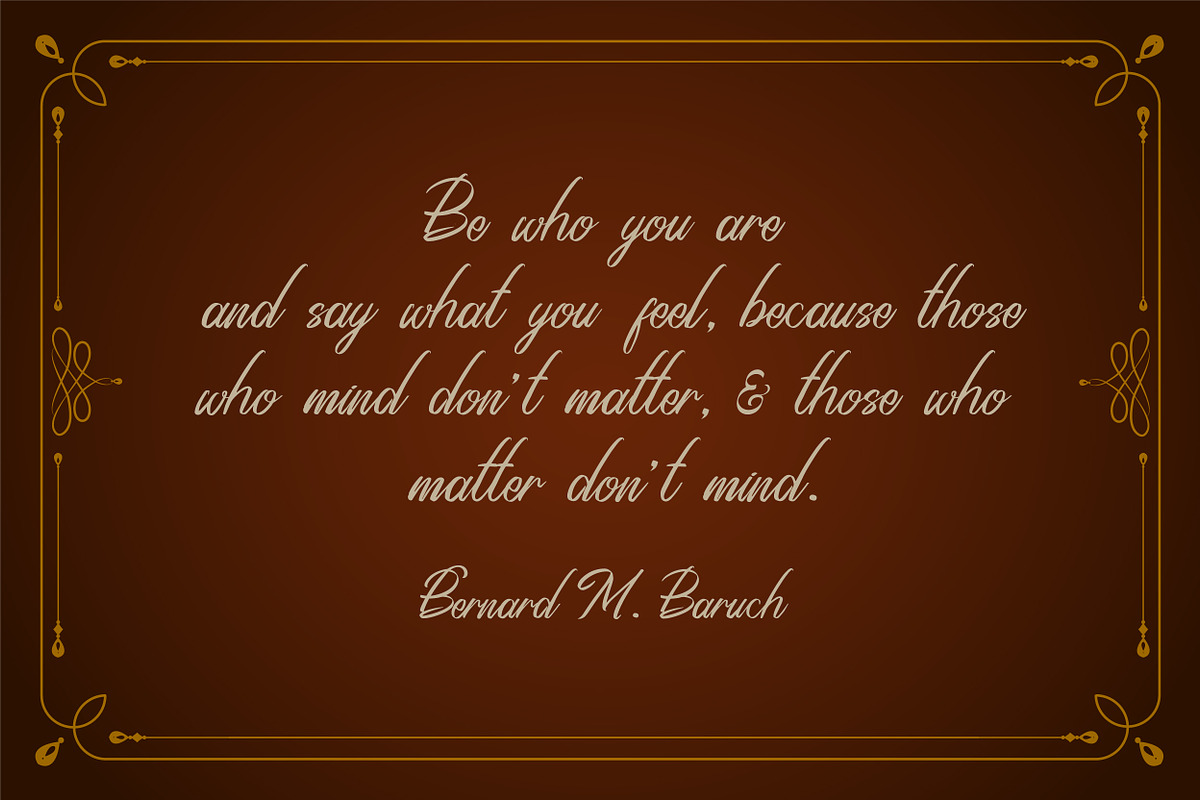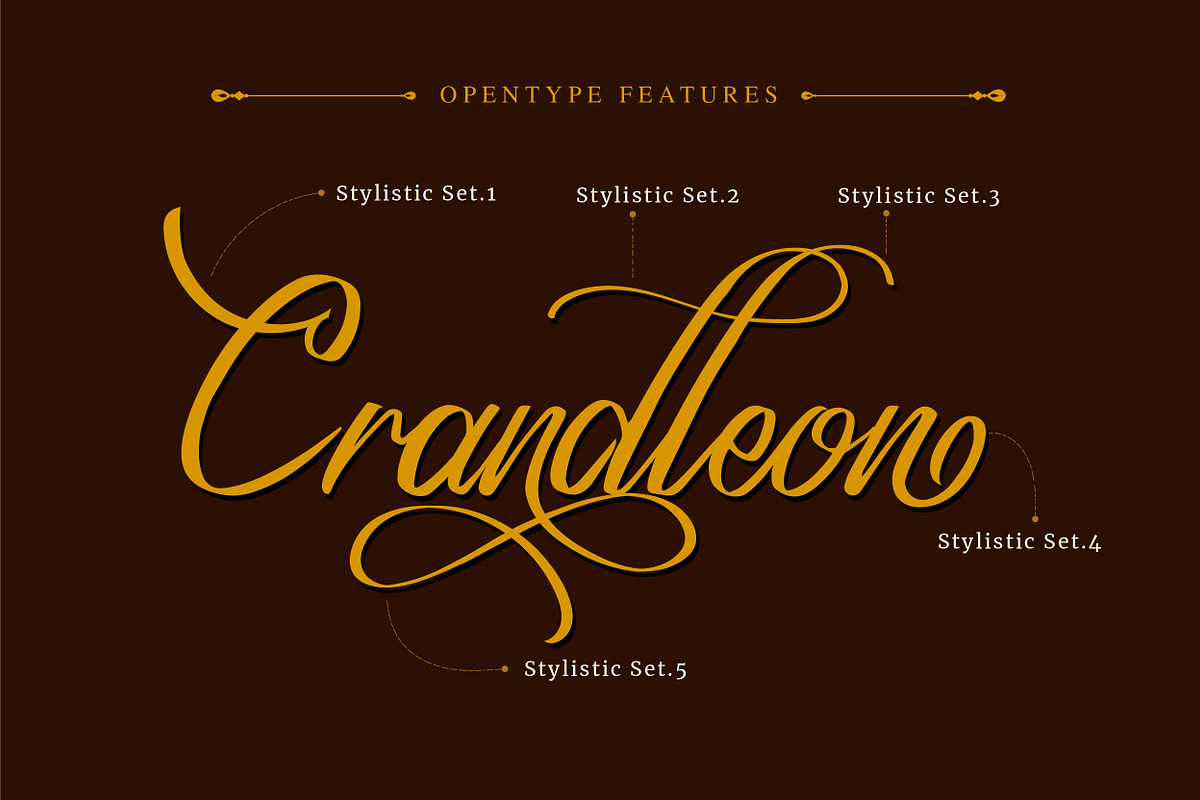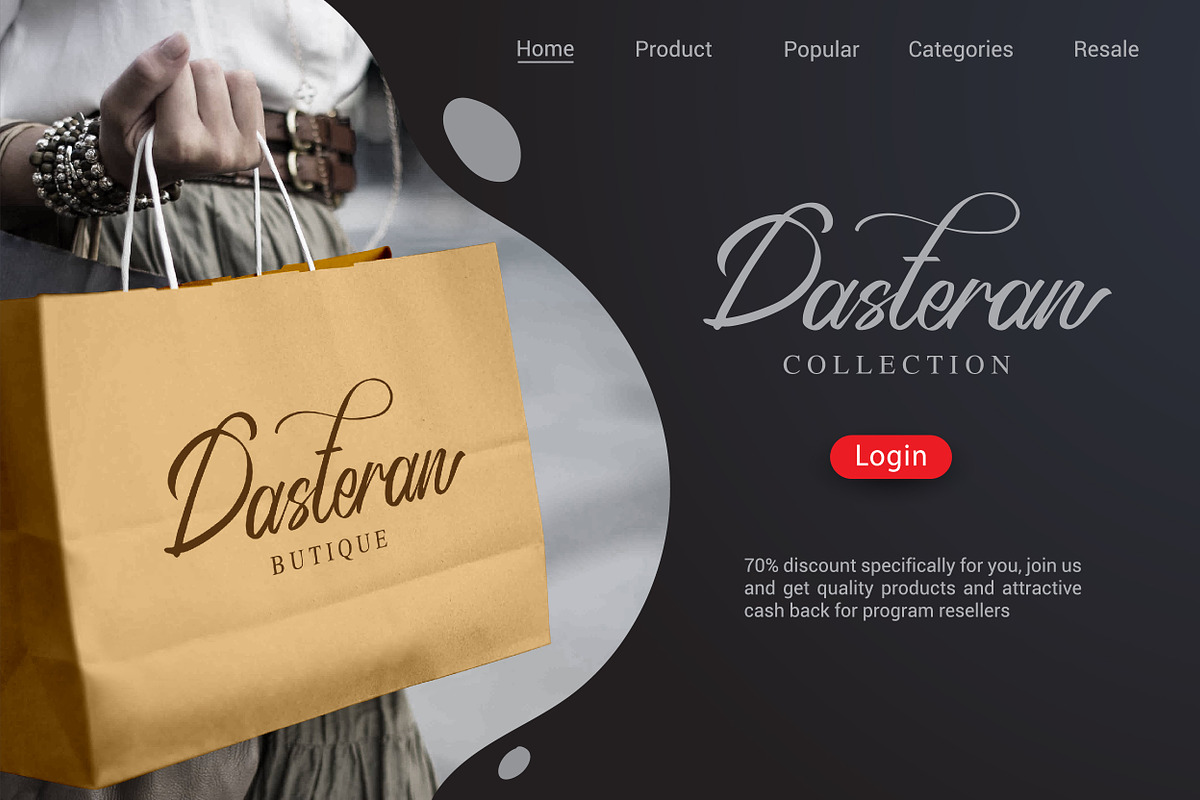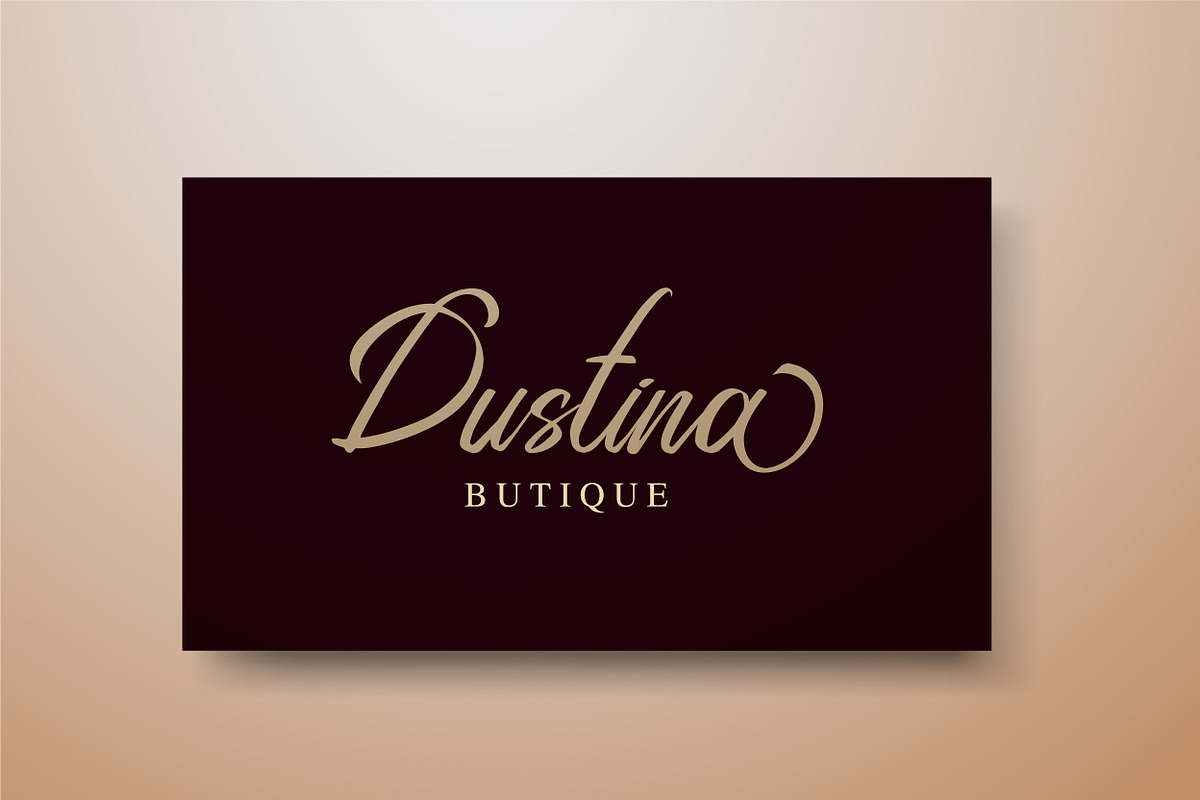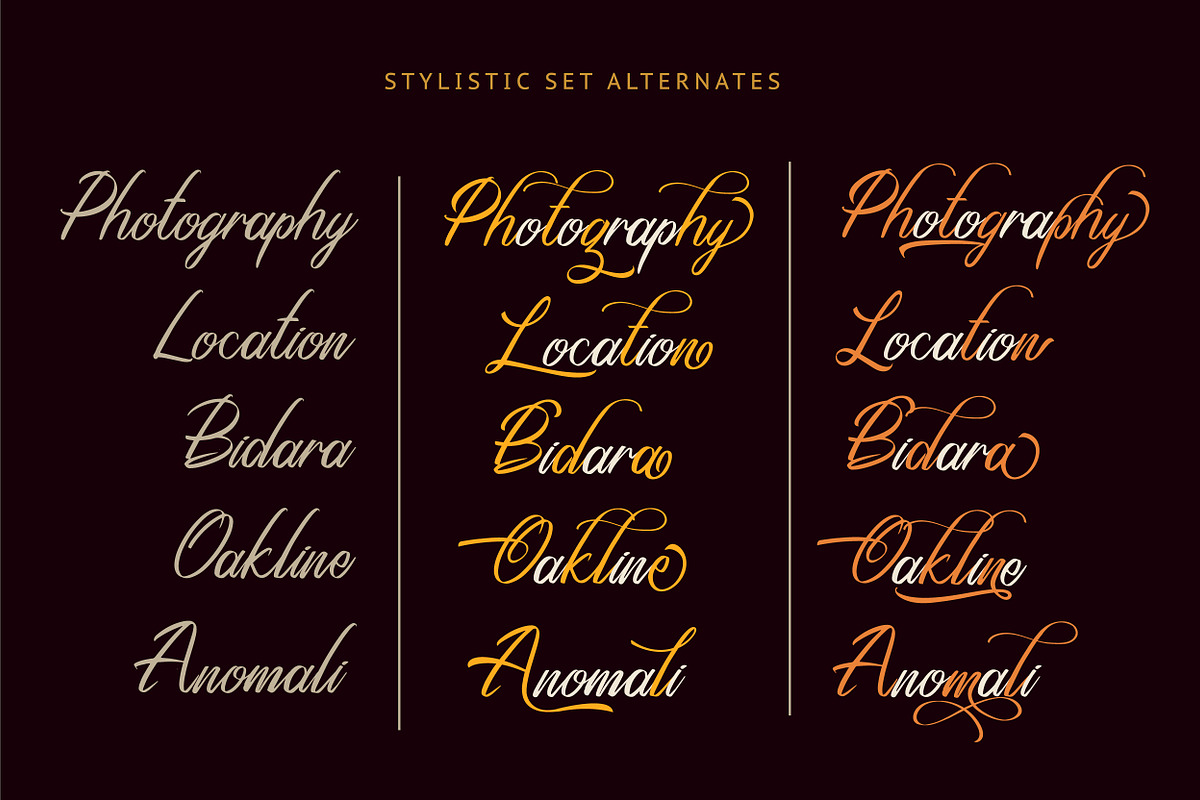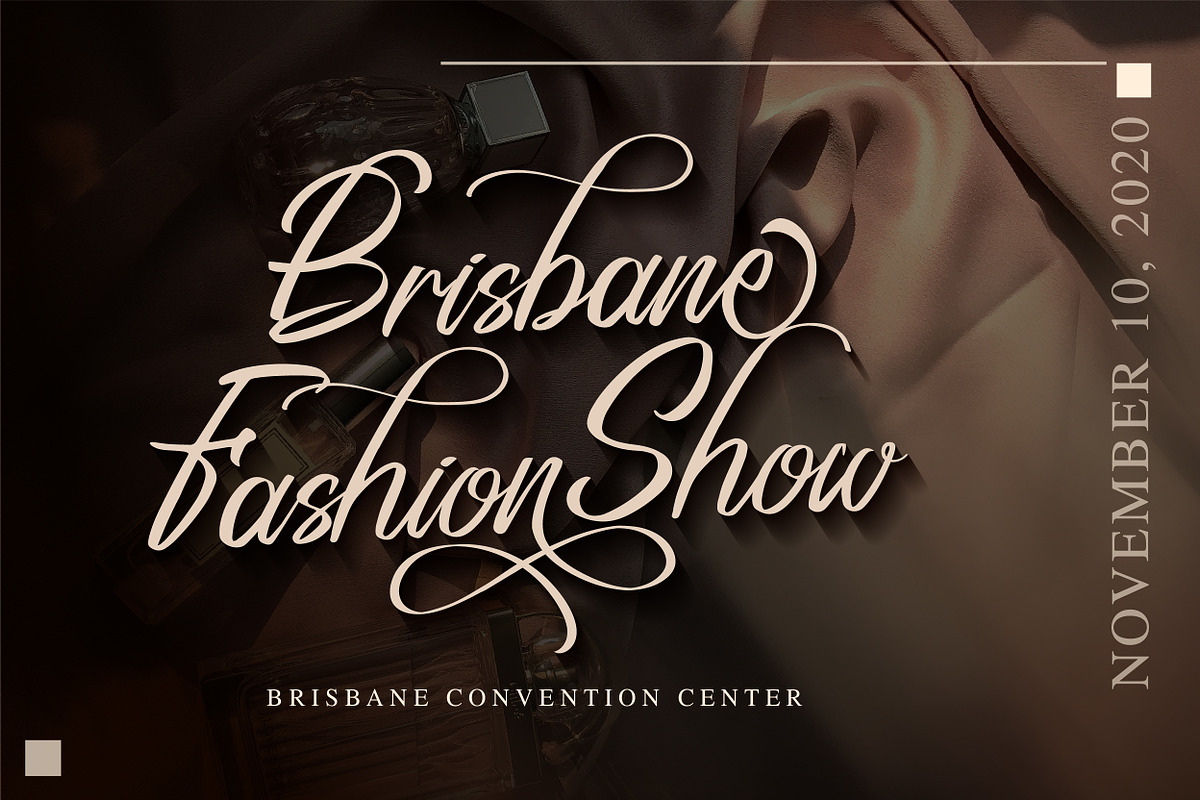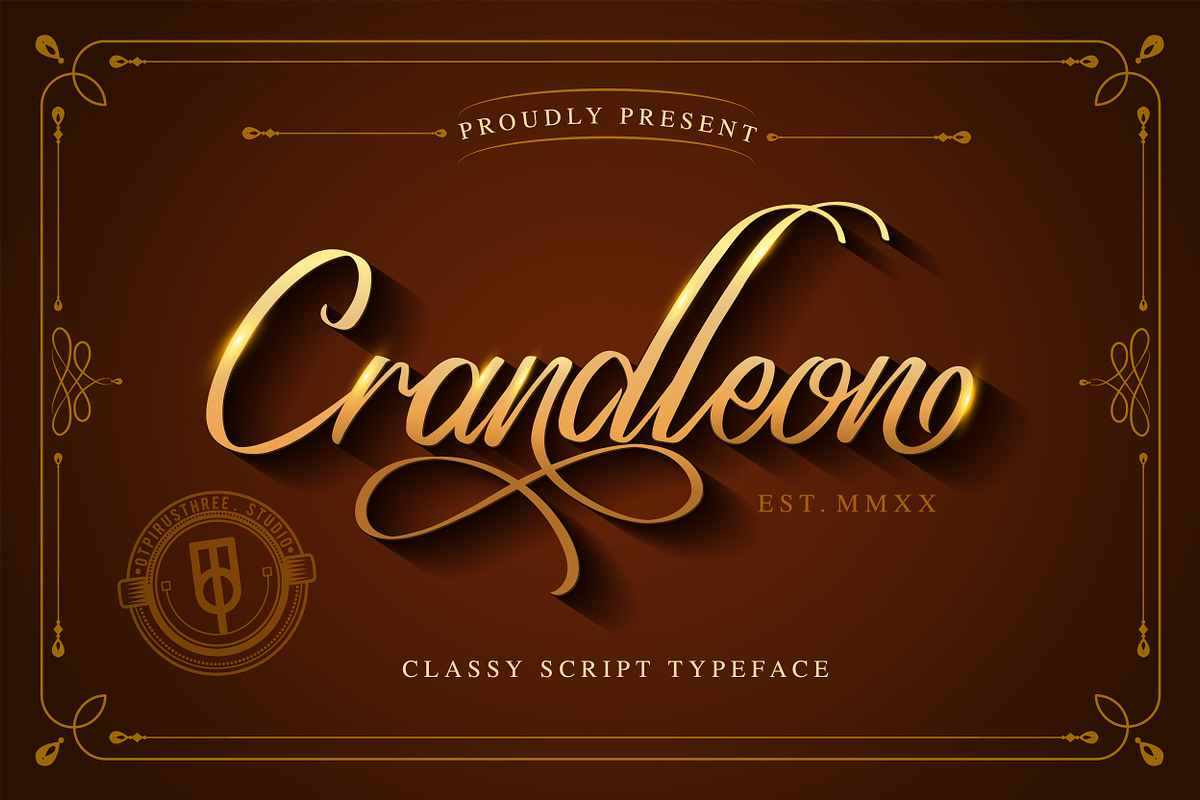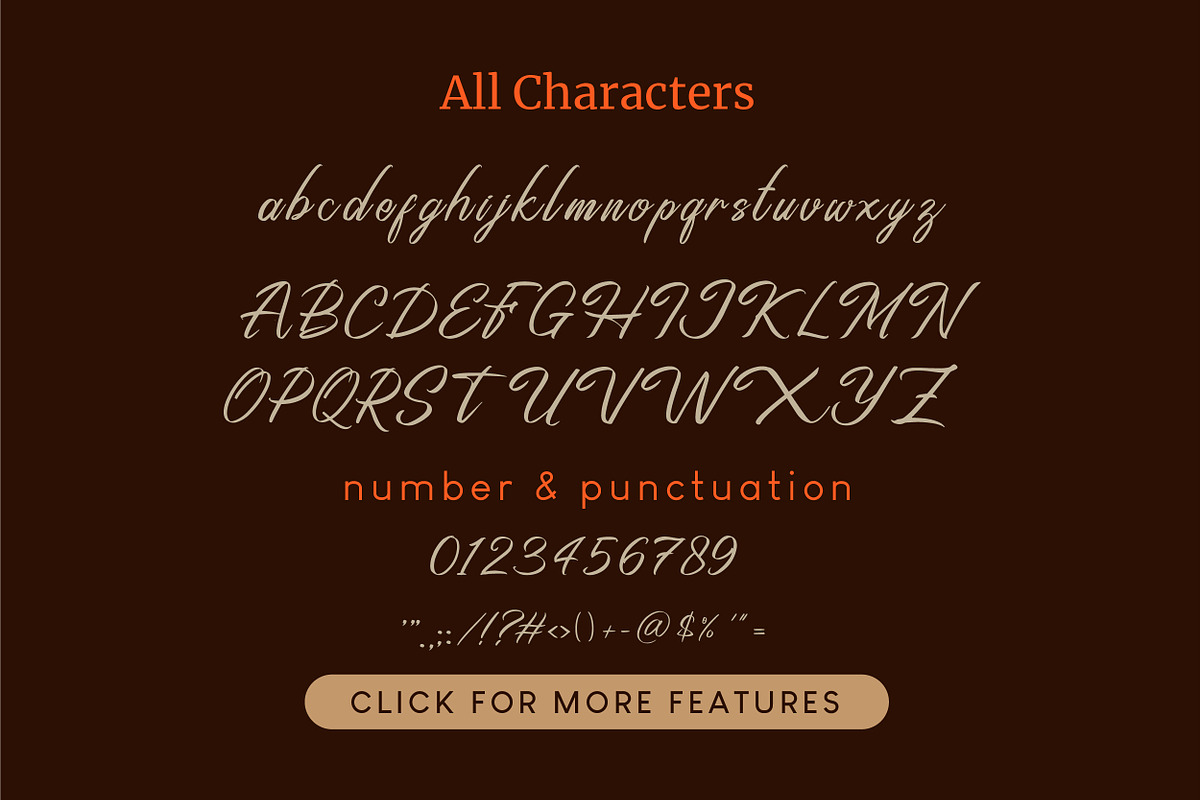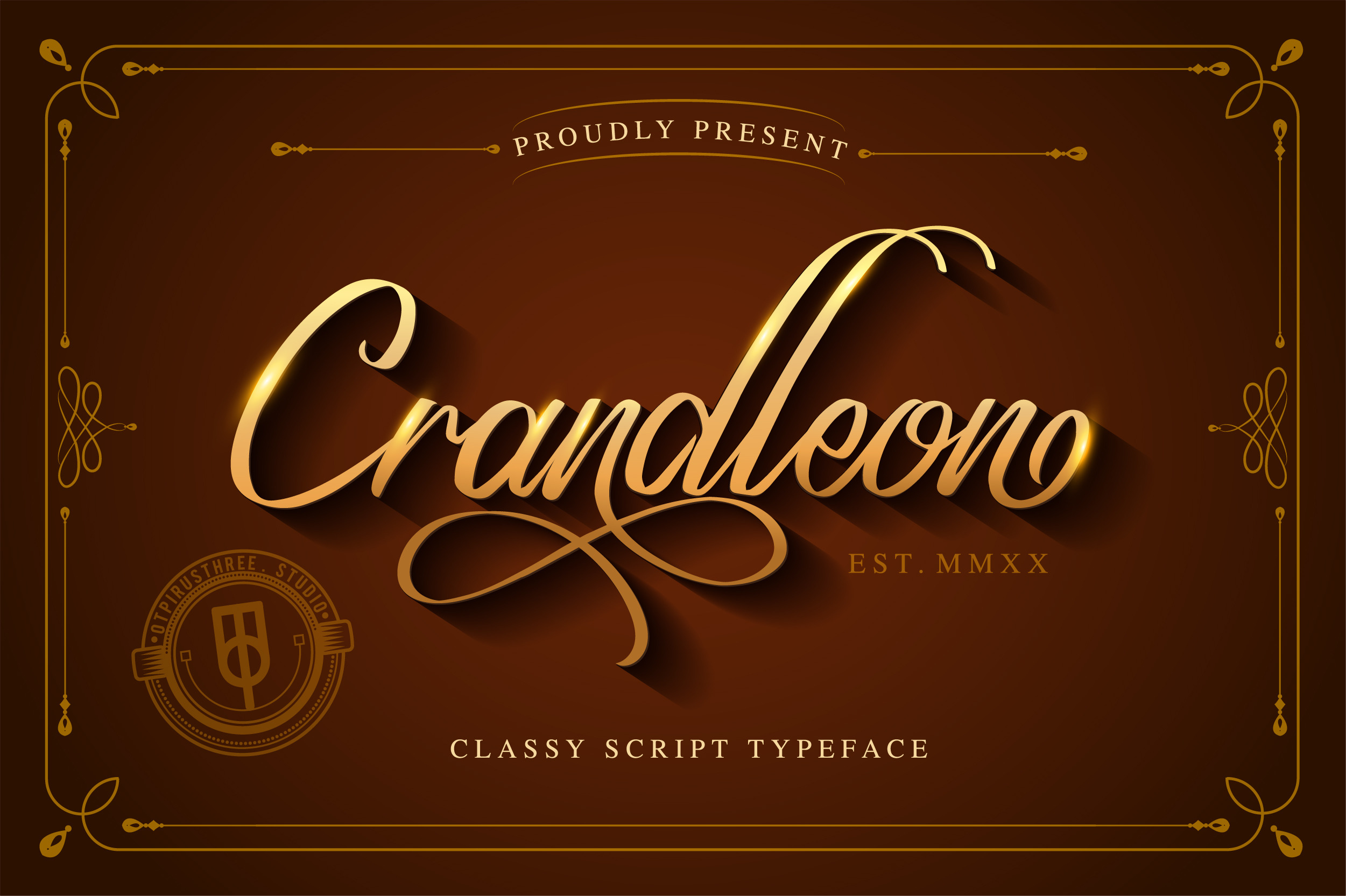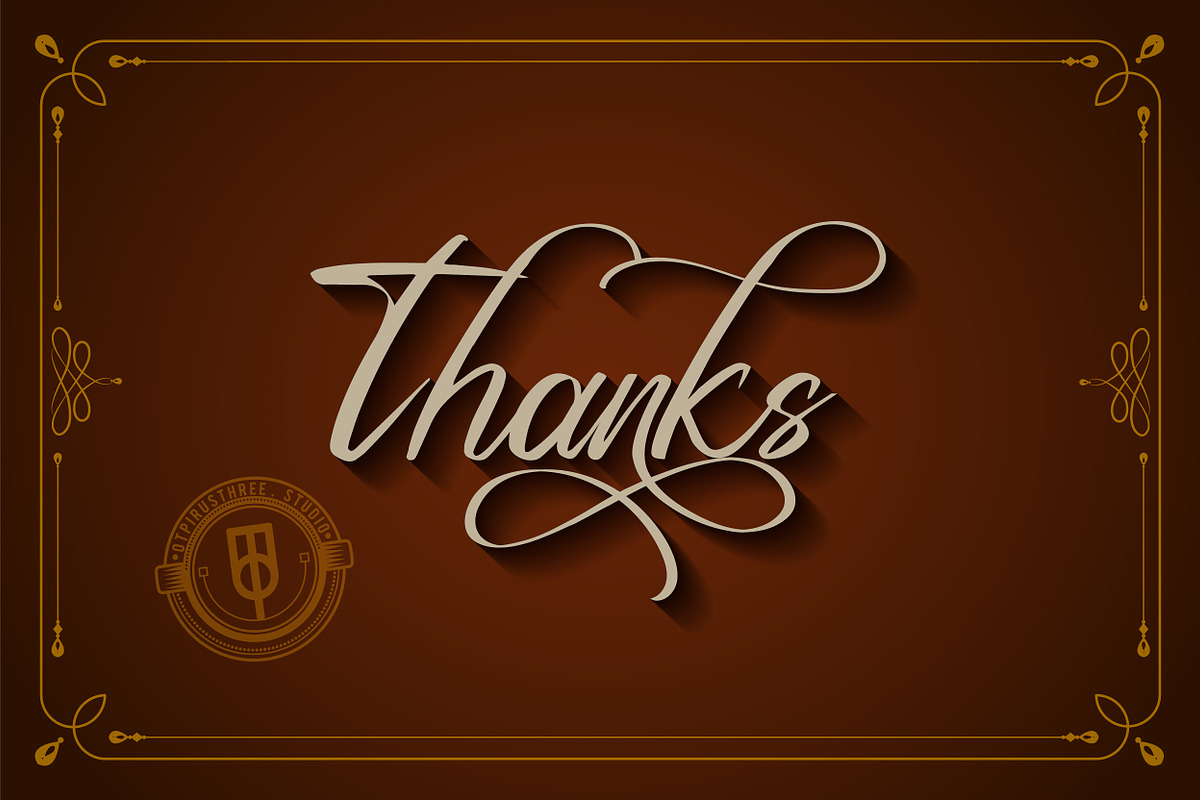
Crandleon Classy Script Typeface
Crandleon is an elegant and flowing handwritten font. It is PUA encoded which means you can access all of the glyphs and swashes with ease! It features a varying baseline, smooth lines, gorgeous glyphs and stunning alternates. Fall in love with its incredibly versatile style and use it to create spectacular designs!
- Numbers and Punctuation
- Opentype Features